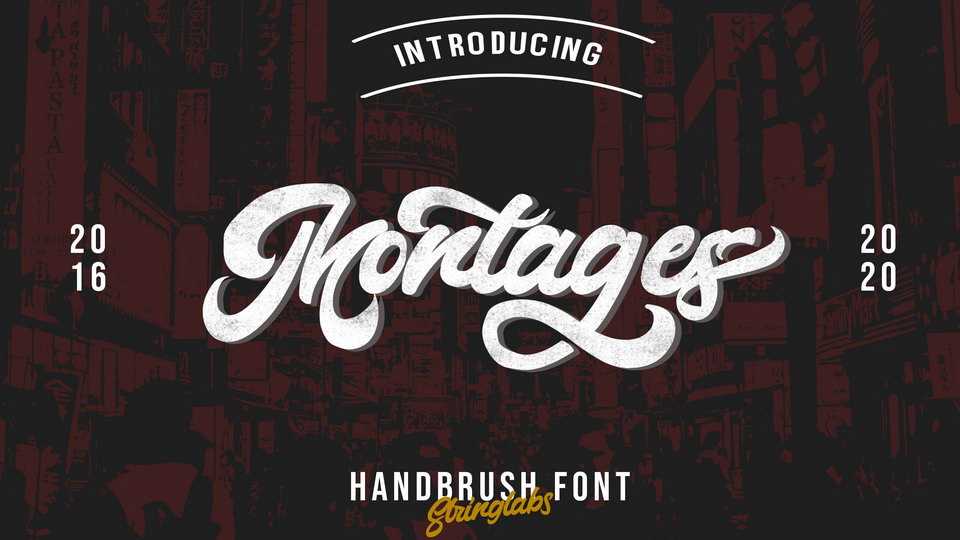
Download Montages font a vintage bold script with unique design that combine classic retro style of the 80s, trendy, vintage, and sporty. Montages is perfect for retro lovers.